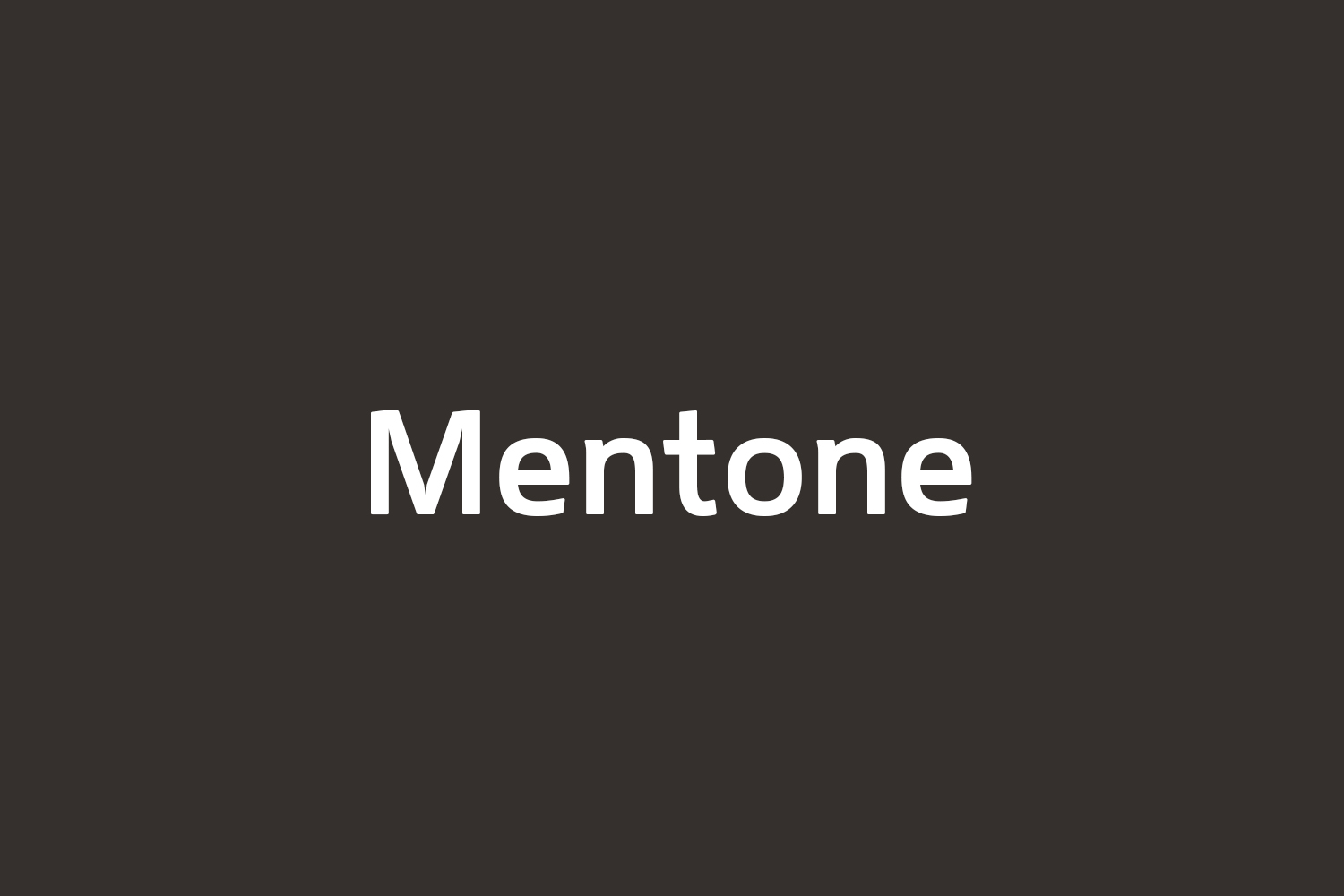
Mentone Free Font Family is a new general purpose typeface, an attempt at extending the line of the great sans-serifs of the previous century and has round corners with subtle chamfers, which are all but invisible at text sizes.
Designed by Paragraph
Mentone SemiBold The quick brown fox jumps over the lazy dog
Mentone SemiBold Italic The quick brown fox jumps over the lazy dog